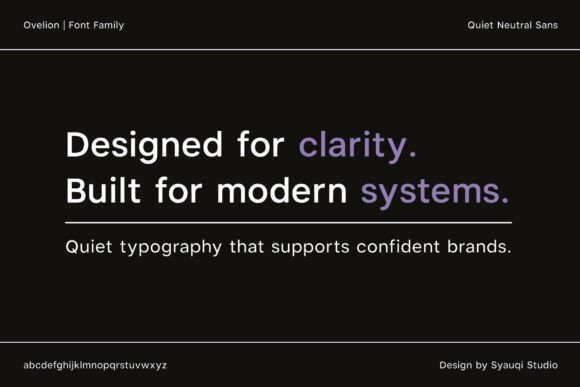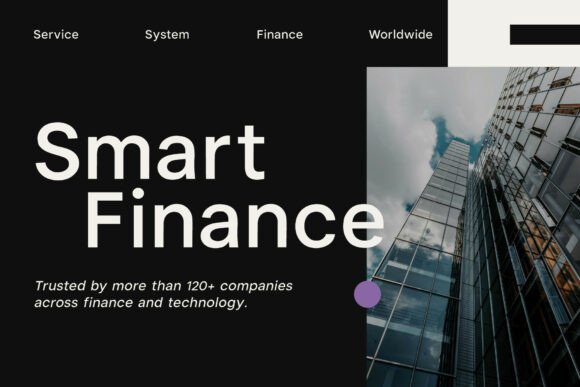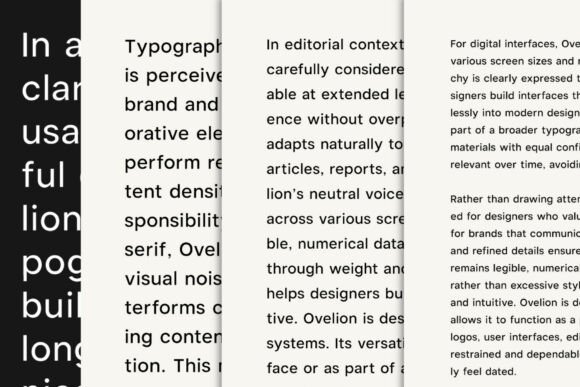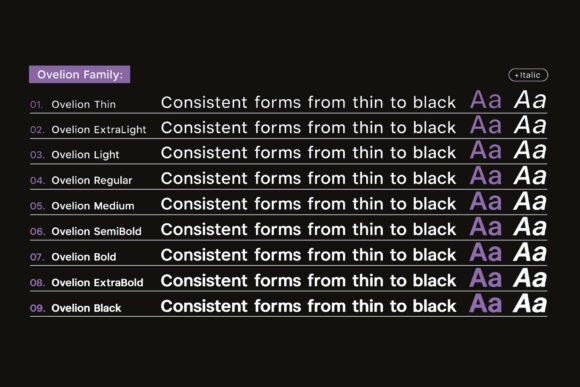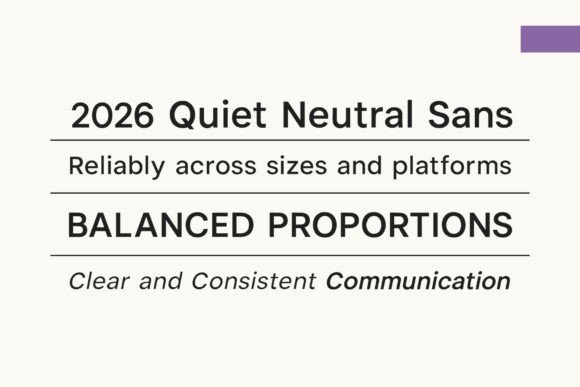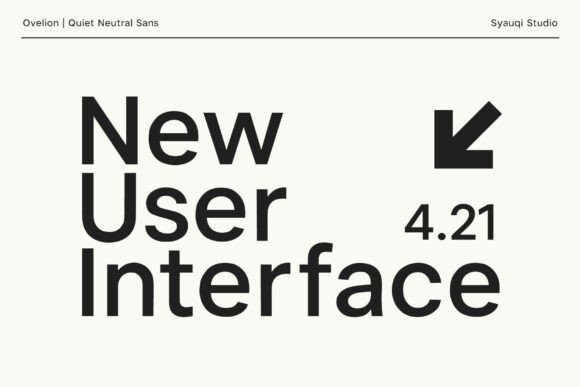
Introduction to Ovelion Font Font
Fonts play a crucial role in design, and the Ovelion Font font is a typeface that brings both character and versatility to any project. Whether you’re working on a branding project, a website, or a print design, the Ovelion Font font offers a unique style that can elevate your work.
Ovelion — Quiet Neutral Sans for Modern Brands & Interfaces Ovelion is a quiet, neutral sans serif designed for clear and consistent communication across branding, digital interfaces, editorial design, and corporate use.
With usability at its core, Ovelion delivers strong readability and visual balance in both screen and print environments Defined by balanced proportions and controlled details, Ovelion presents a clean, confident typographic voice with a warm professional tone.
Key Features of Ovelion Font Font
Why Choose Ovelion Font Font?
The Ovelion Font font is more than just a typeface – it’s a design tool that helps you communicate your message with style and clarity. Its unique character set and versatile design make it suitable for a wide range of applications, from elegant invitations to bold headlines.
With its carefully crafted letterforms and balanced proportions, the Ovelion Font font ensures readability and visual appeal across all mediums.
What makes Ovelion Font font special?
The Ovelion Font font stands out with its unique design, exceptional readability, and versatility across various design applications.